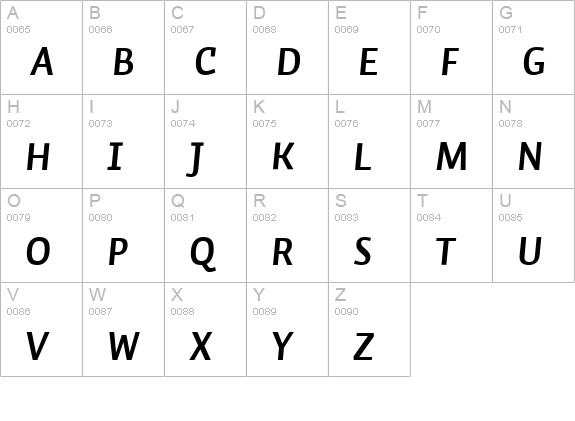
Auto 1 Bold Italic LF is a strong, high-contrast, italic variant in the Auto typeface family \xE2\x80\x94 well suited to headlines, attention-grabbing titles, and strong calls-to-action.
Auto 1 Bold Italic LF font is a modern and sleek typeface that exudes confidence and style. With its bold and italic design, this font is perfect for making a statement in any project. The sharp lines and sophisticated curves of Auto 1 Bold Italic LF make it ideal for headlines, logos, and other design elements that require a strong visual impact. One of the best things about Auto 1 Bold Italic LF font is that it is available for free download at FontsMarket.com. This means you can easily add this eye-catching font to your collection without having to spend a dime. Whether you're a designer looking to elevate your work or simply someone who appreciates beautiful typography, Auto 1 Bold Italic LF is sure to impress with its bold and dynamic aesthetic. Download it today and see how it can enhance your projects!